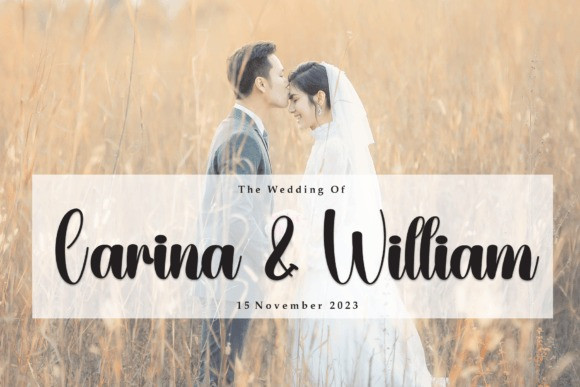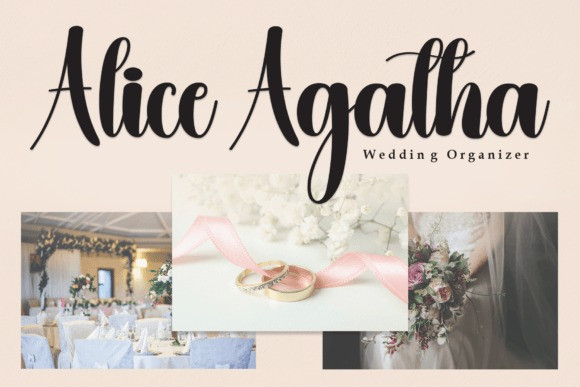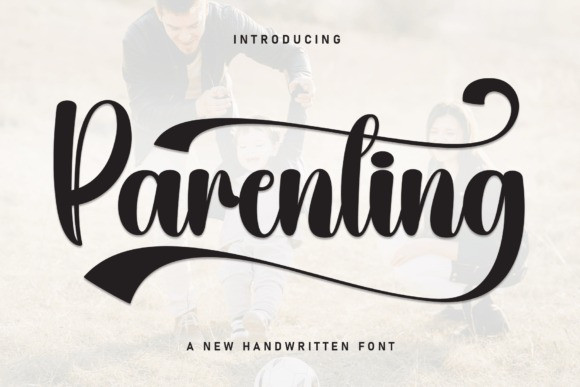
Parenting Script Font
Parenting Script Font is an enchanting handwritten font. This versatile script font has a wide spectrum of applications ranging from greeting cards to headlines and is guaranteed to add a romantic feel to your next project.